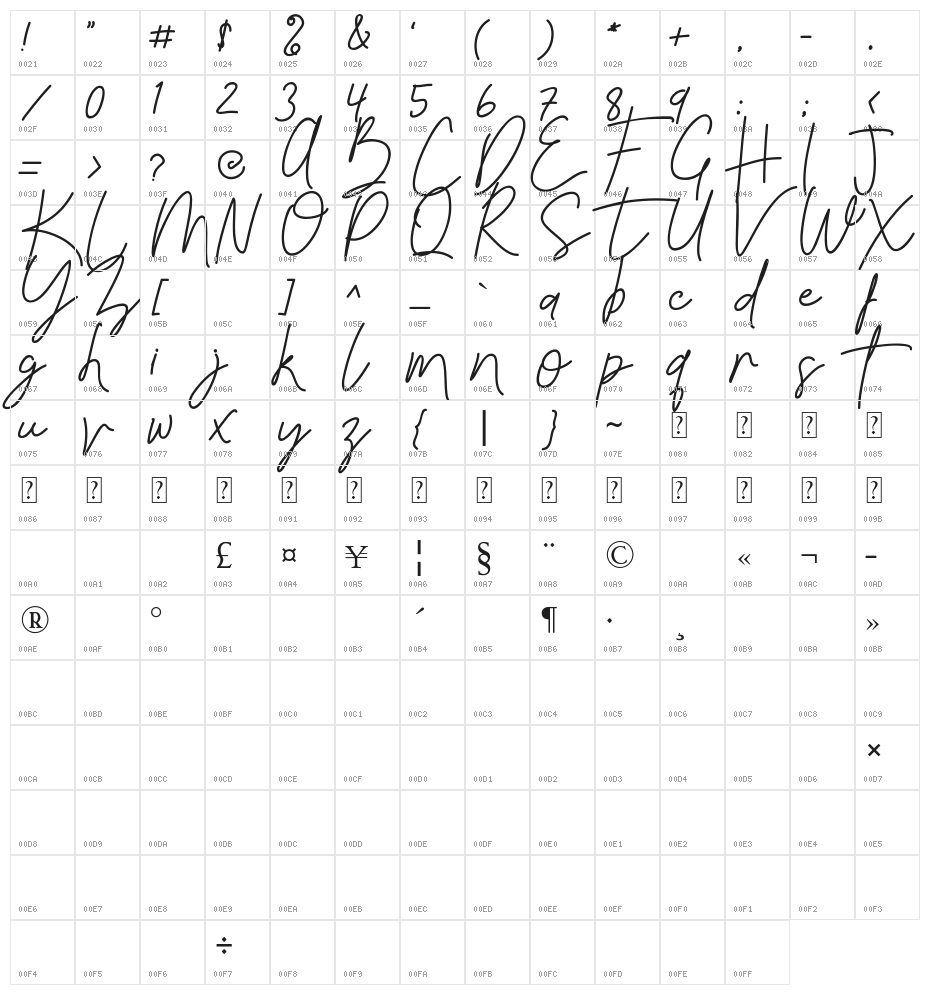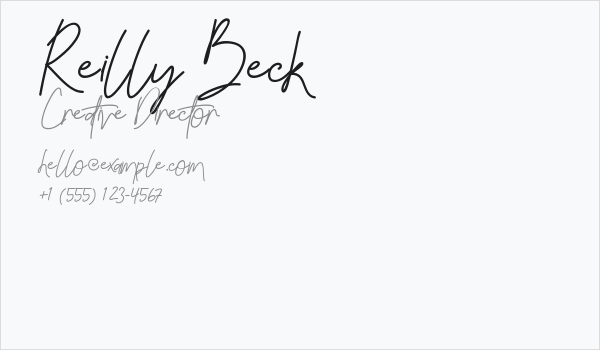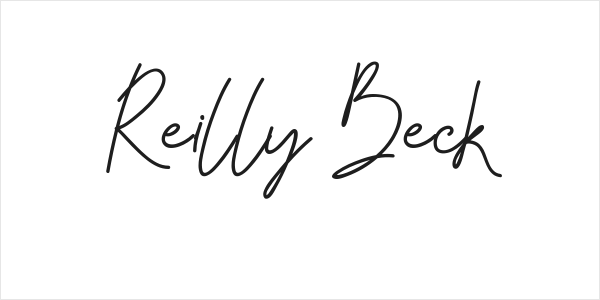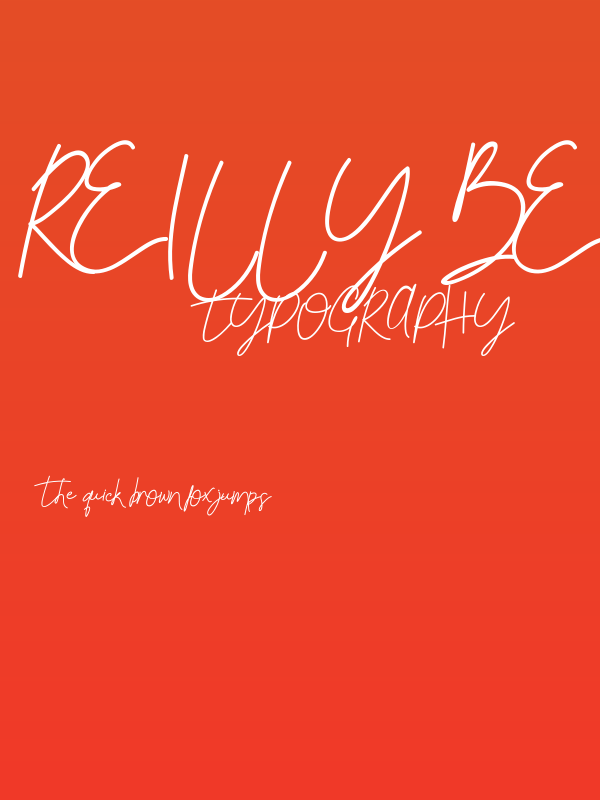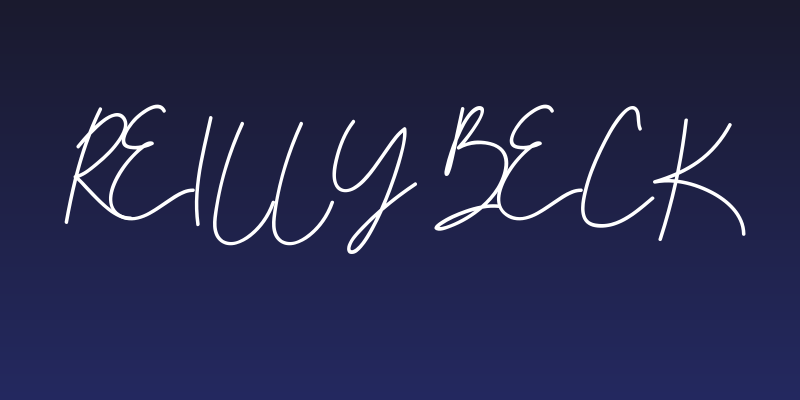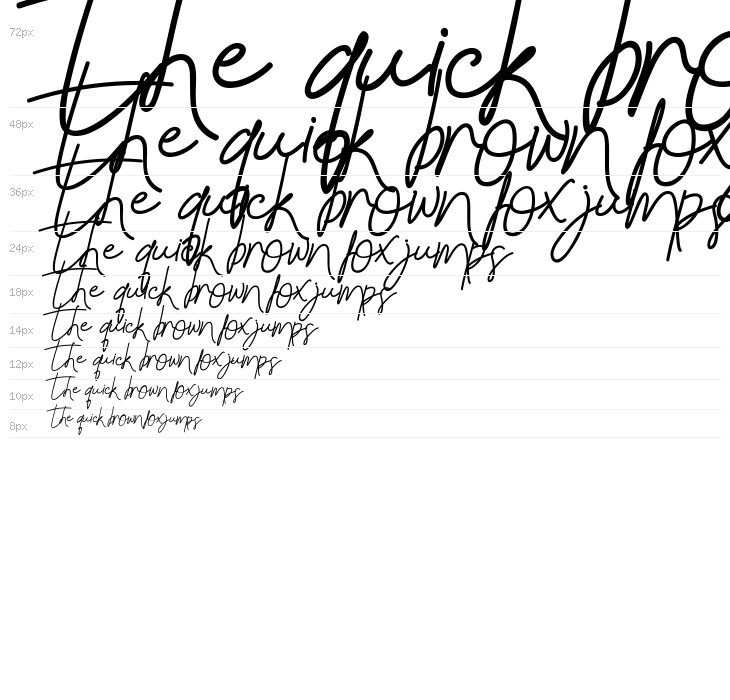
Reilly Beck Font
Reilly Beck Description
This font exhibits a dynamic, handwritten style with a casual and energetic flair. The characters are fluid and slightly slanted, giving an impression of speed and spontaneity. The strokes vary in thickness, adding a lively and personal touch to the text. The uppercase letters are tall and narrow, while the lowercase letters maintain a consistent flow with occasional loops and curves. Numbers and special characters follow the same lively style, ensuring a cohesive look across all elements. This font is ideal for projects that require a personal, informal touch, such as invitations, greeting cards, or creative branding.
| Use Case | Logos, Headlines, Informal text |
| Proposed Projects | Ideal for invitations, greeting cards, creative branding, and personal projects. |